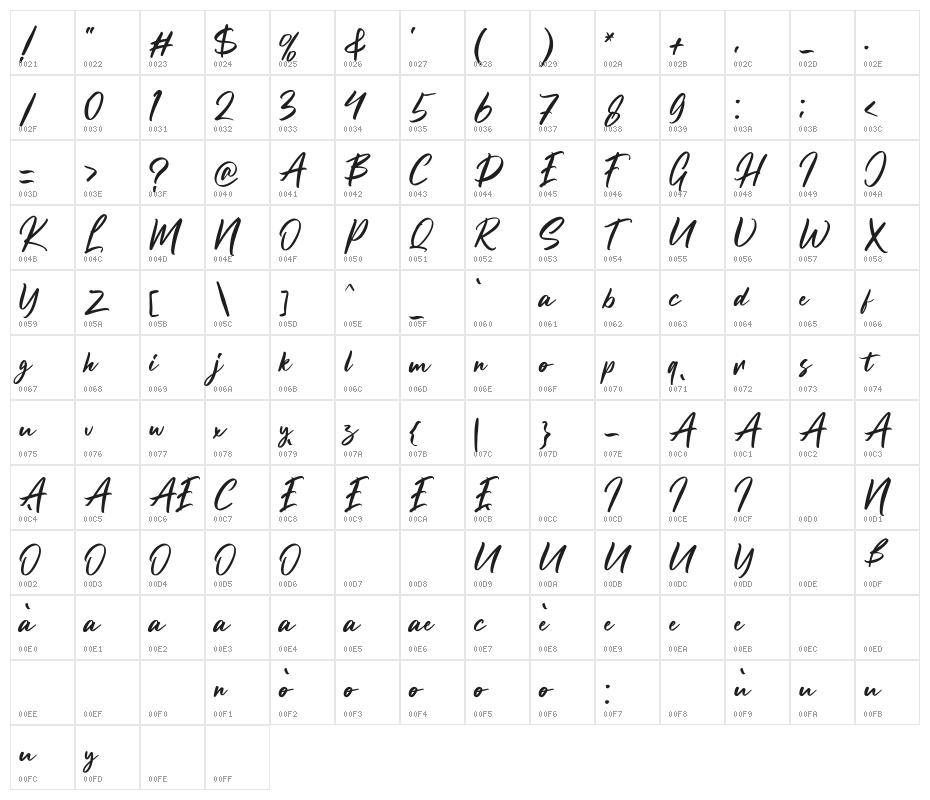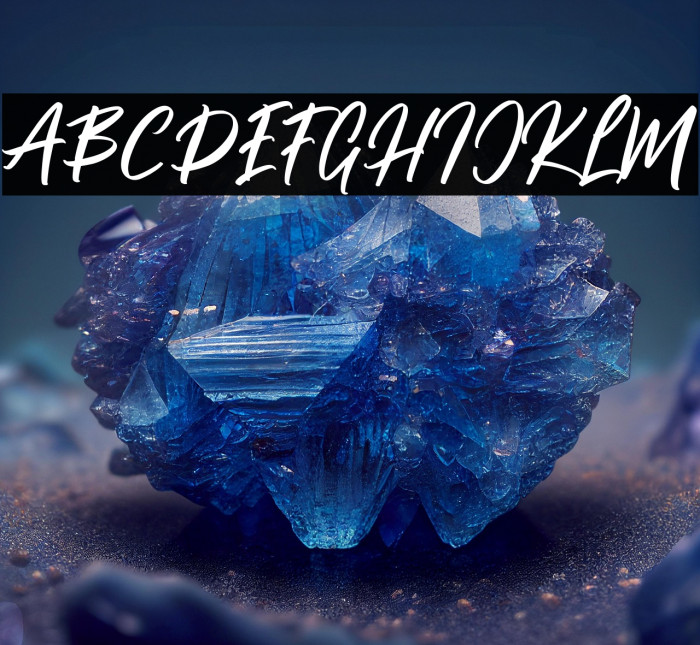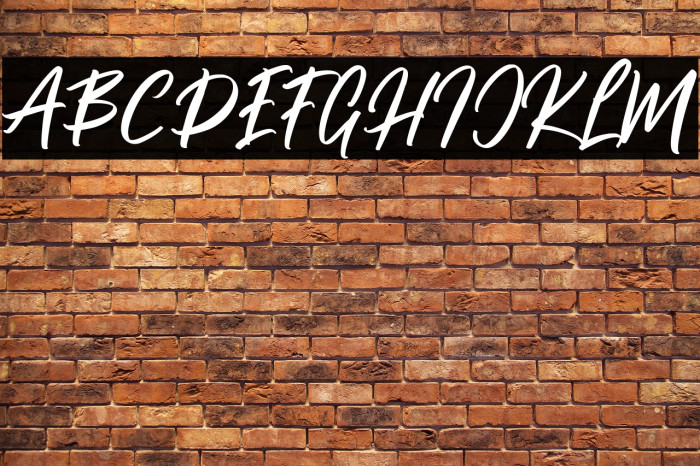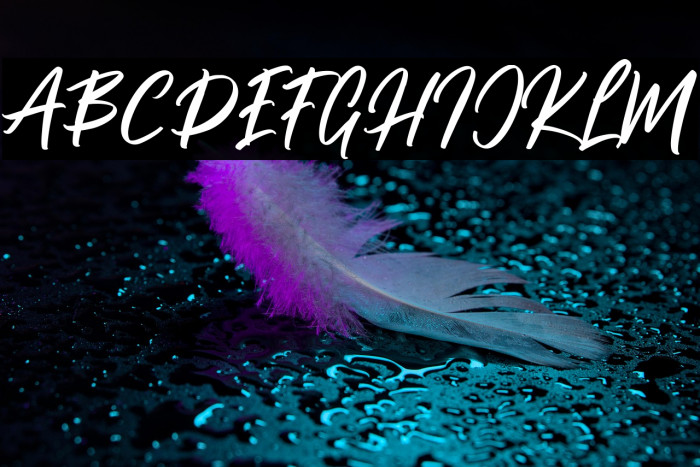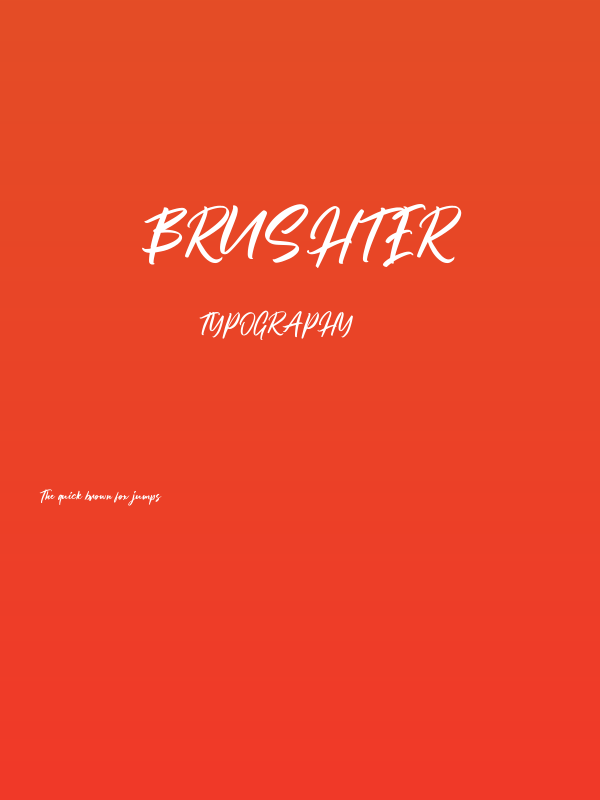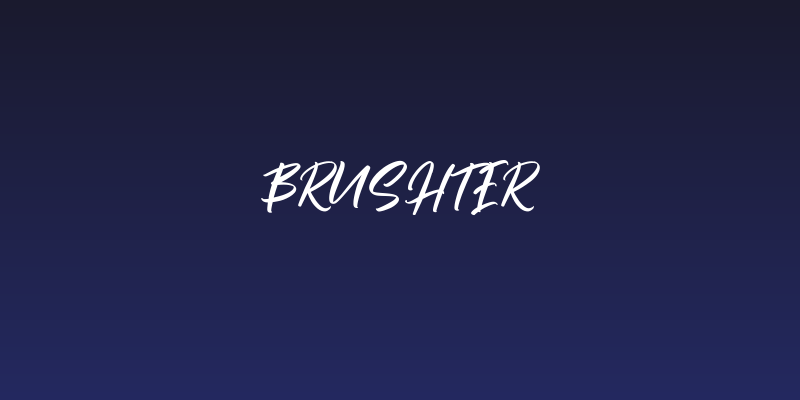
Brushter Font
Brushter Description
This font features a dynamic and expressive brush script style, characterized by its fluid and energetic strokes. The letters are connected in a natural, flowing manner, giving it a handwritten appearance. The uppercase letters are bold and slightly slanted, while the lowercase letters maintain a consistent rhythm and balance. The numbers and special characters are crafted with the same lively brush strokes, ensuring a cohesive look across all elements. This font exudes a sense of creativity and spontaneity, making it ideal for projects that require a personal touch.
| Proposed Projects | Ideal for branding, invitations, greeting cards, and creative projects that require a personal, handwritten touch. |